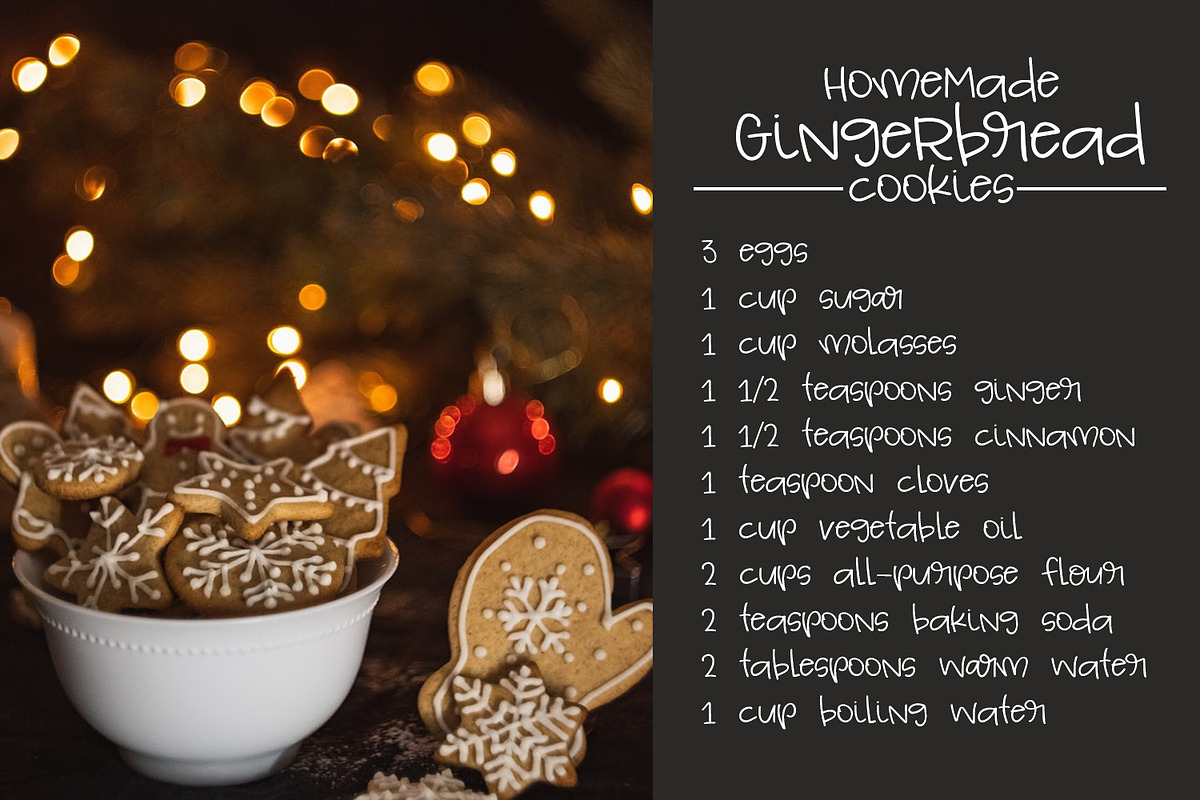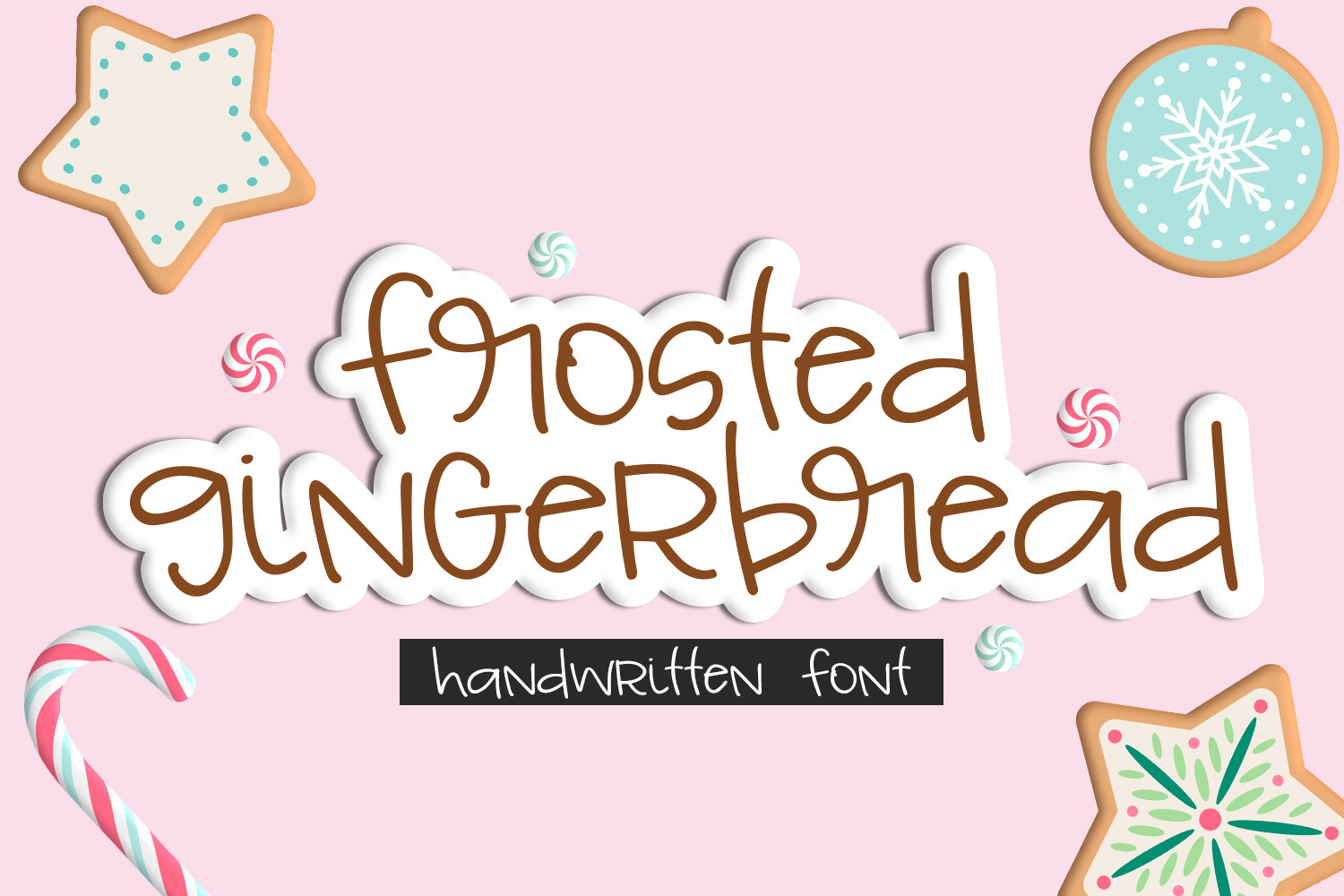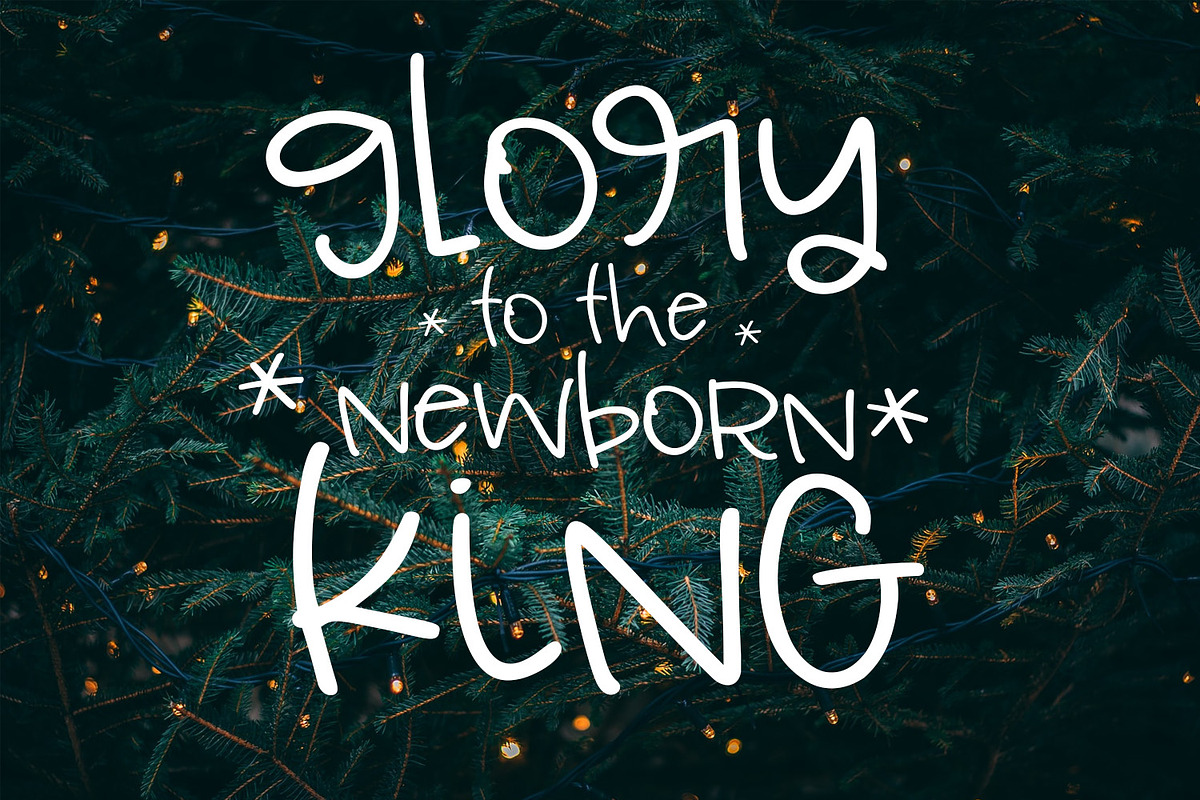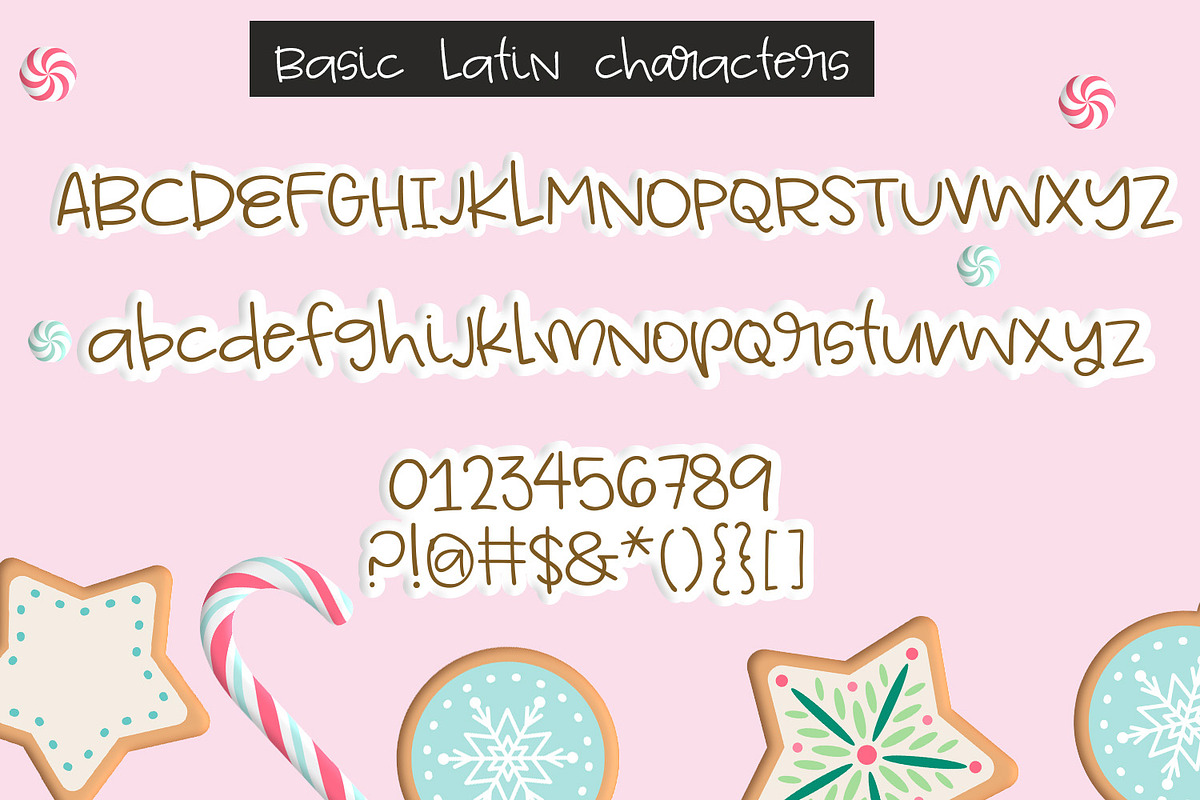
NEW!! Frosted Gingerbread Font
Frosted Gingerbread Handwritten Font
Frosted Gingerbread is a fun, youthful mixed-case font bursting with charm and personality! It is perfect for many design projects, and smooth enough for Cricut & Silhouette cutting machines.